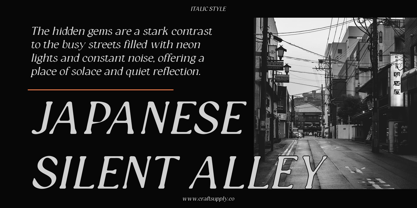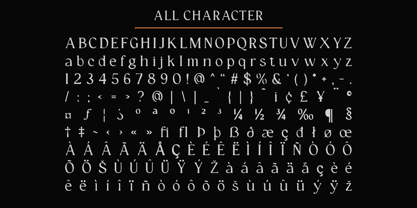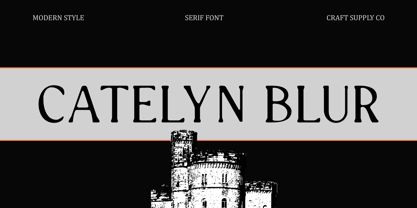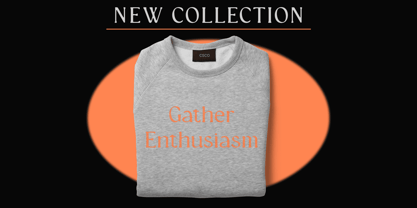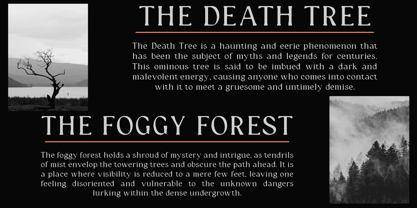
Catelyn Blur
by Craft Supply Co
The Catelyn Blur Font Family was designed by Trio Nazzar Saputra, Wahyu Hadi Yuana and published by Craft Supply Co. Catelyn Blur contains 2 styles and family package options. More about this family
Catelyn Blur: Subtle Sophistication in Display
Low Contrast Serif Design
Catelyn Blur boasts a low contrast serif design, offering a subtle yet refined aesthetic. Its rounded serifs add a touch of softness and elegance to each character.
Blur Effect Enhancement
With the addition of a blur effect, this font takes on a unique and captivating appearance. The blurred edges create a sense of depth and intrigue, making it stand out in any display setting.
Perfect for Display Purposes
Designed with display in mind, This font excels in catching the eye and conveying a message with style. Whether used for headlines, banners, or signage, it adds a touch of sophistication to any design project.
Versatile Application
Despite its distinct design features, This font is surprisingly versatile. It can effortlessly adapt to various design contexts, from branding and advertising to editorial layouts and digital displays.
Softness meets Style
This font combines low contrast serif design with a subtle blur effect to create a font that is both elegant and attention-grabbing. Its versatility and unique appearance make it a valuable asset for designers seeking to make a statement in their display projects.
Designers: Trio Nazzar Saputra, Wahyu Hadi Yuana
Foundry: Craft Supply Co